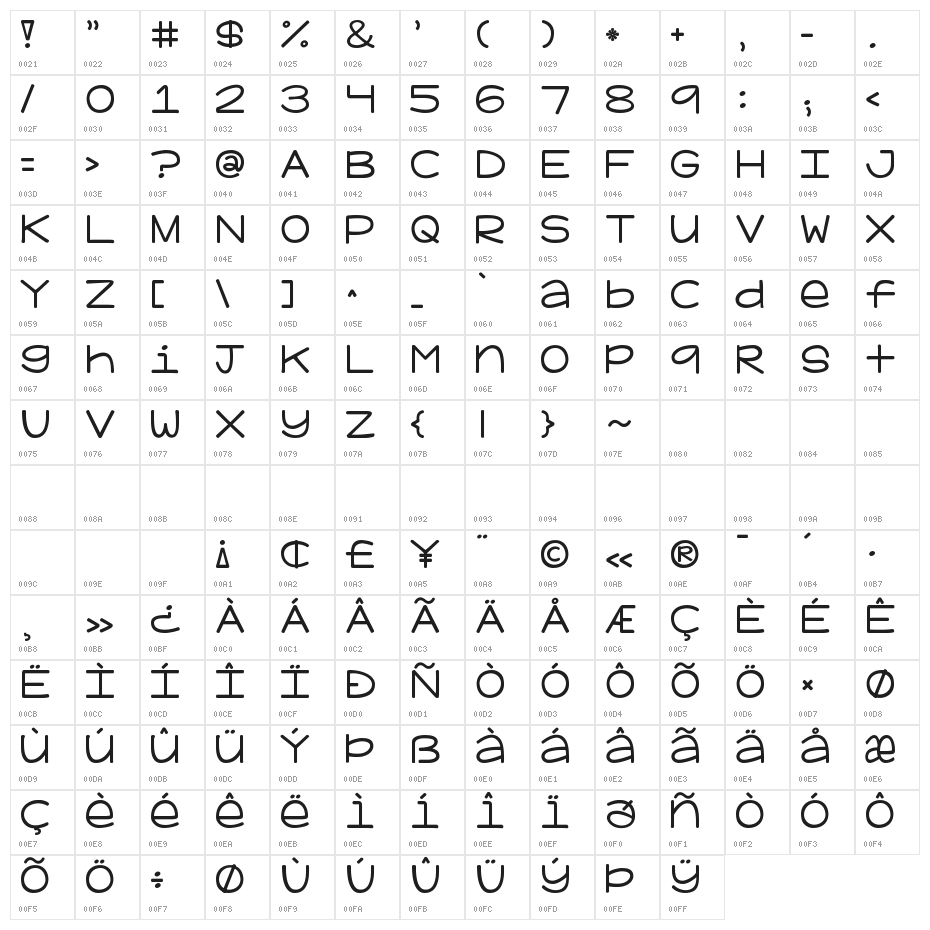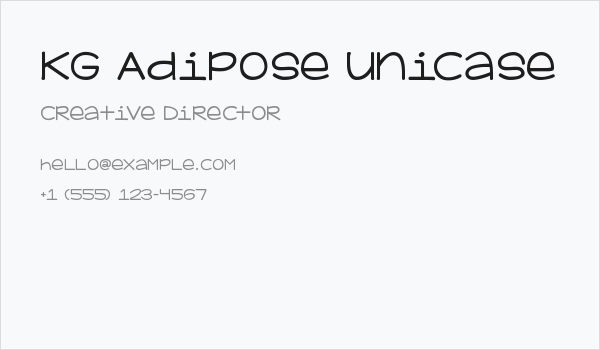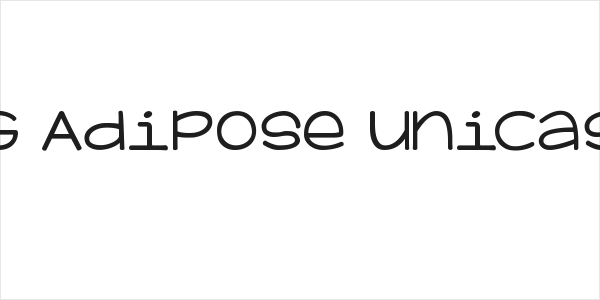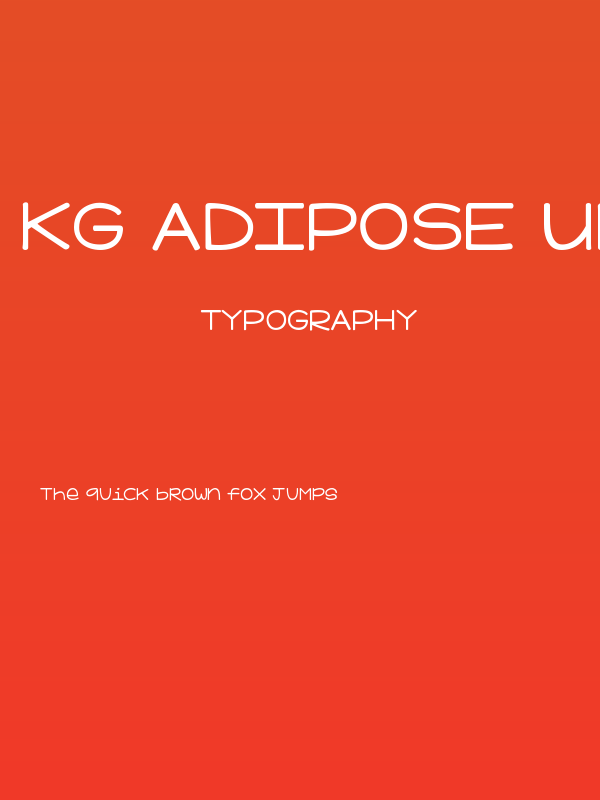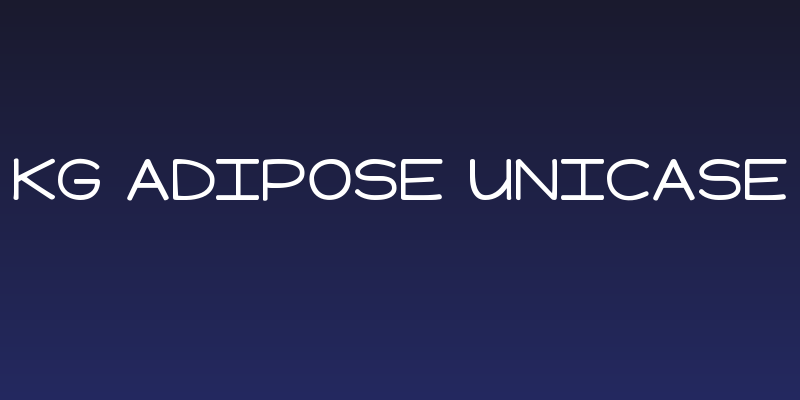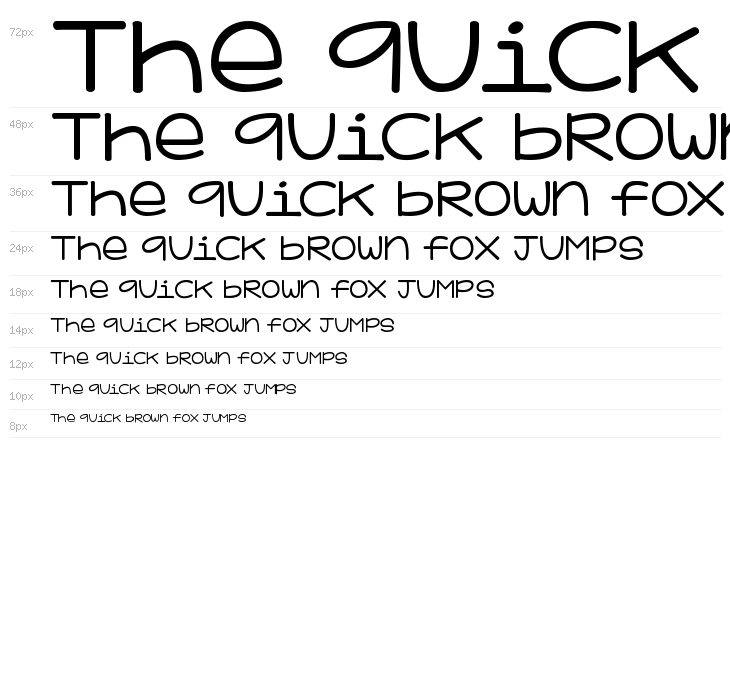
KG Adipose Unicase Font
KG Adipose Unicase Description
This font features a playful and rounded design, characterized by its smooth, continuous lines and uniform stroke width. The letters are slightly elongated with a whimsical touch, making them appear friendly and approachable. The uppercase and lowercase letters share a similar height, creating a unicase effect that adds to its unique style. The numerals and special characters maintain the same rounded and soft aesthetic, ensuring consistency across all glyphs. This font's simplicity and charm make it versatile for various creative applications.
| Proposed Projects | Ideal for children's books, playful branding, greeting cards, and educational materials. |